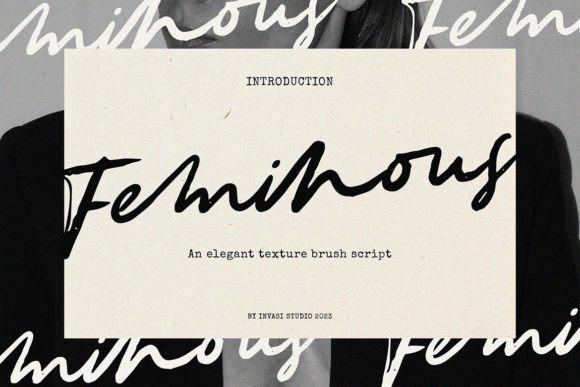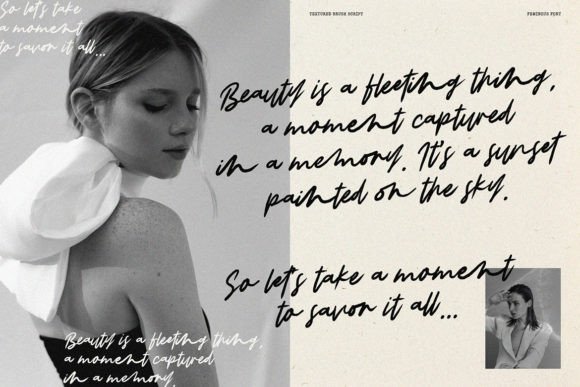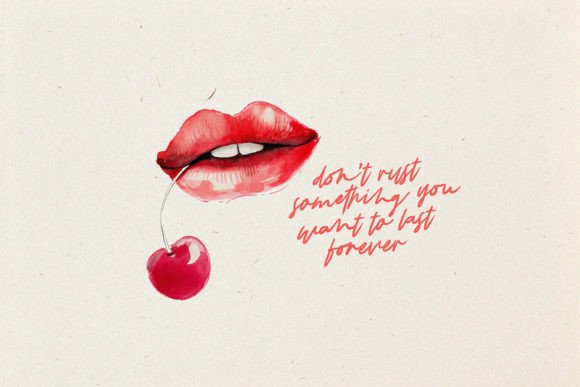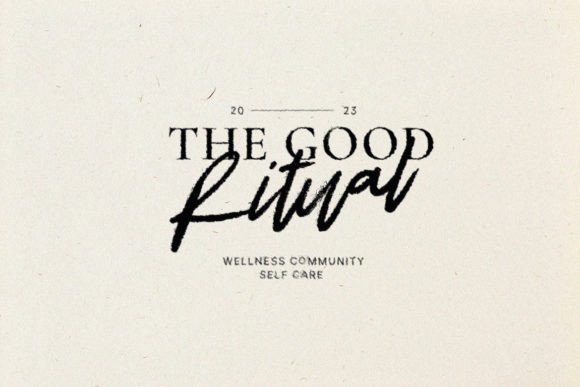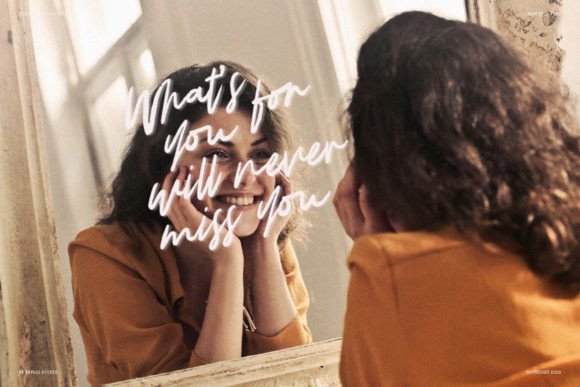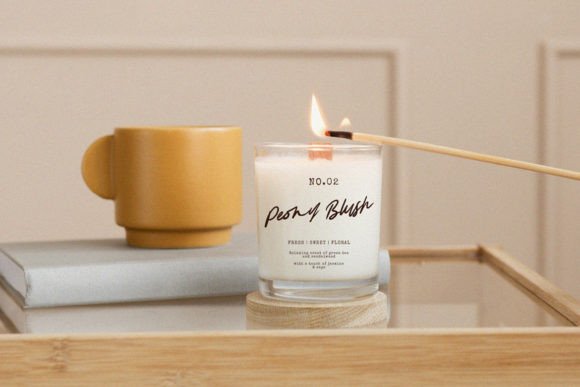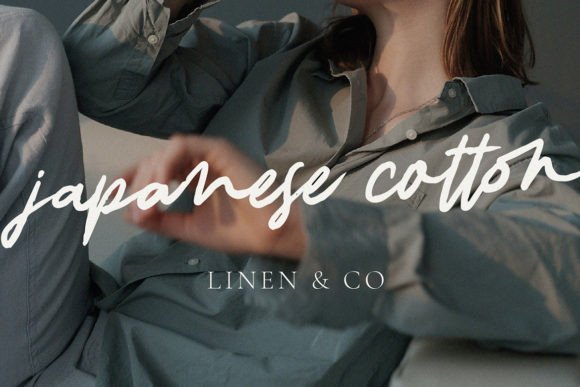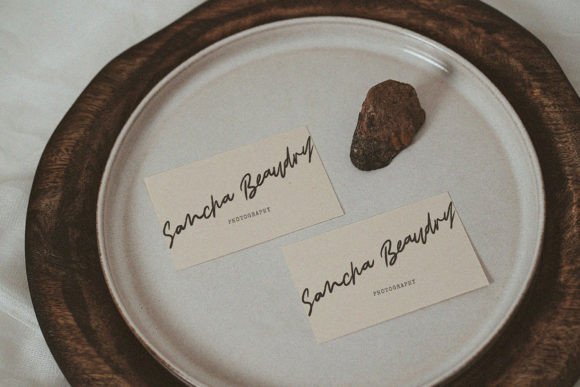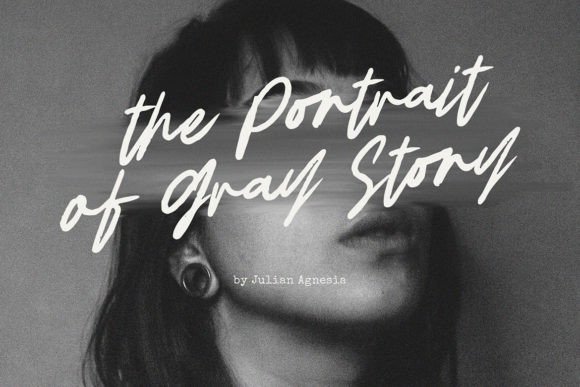
Feminous Font
Feminous is a beautiful and elegant handwriting font. With its flowing curves and delicate details, it adds a touch of sophistication to any design project. Ideal for wedding invitations, high-end branding, and more, this font is sure to elevate your work. Keep in mind that the font is PUA encoded, meaning that you can access all delightful glyphs and swashes effortlessly.